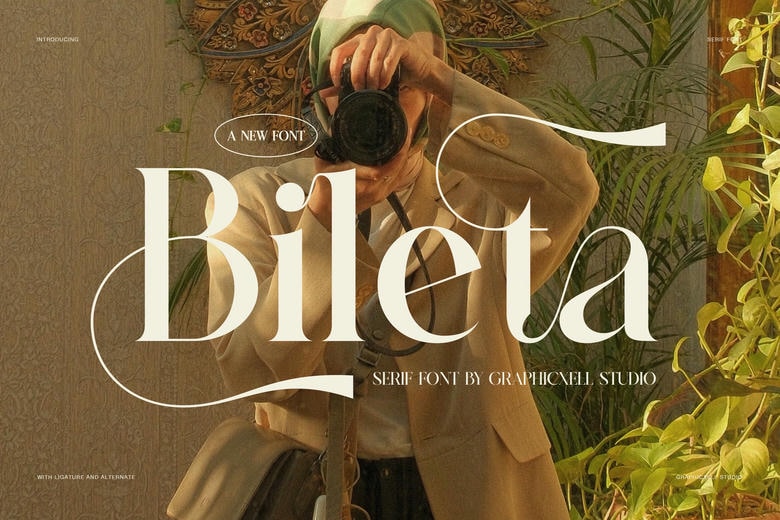
Bileta Font
Bileta is an elegant serif font with a refined, fashion-inspired style and graceful swash details. Its high-contrast strokes blend with smooth curves, sharp serifs, and flowing extensions. Each word looks polished, stylish, and full of character.
Bileta Elegant Serif Font